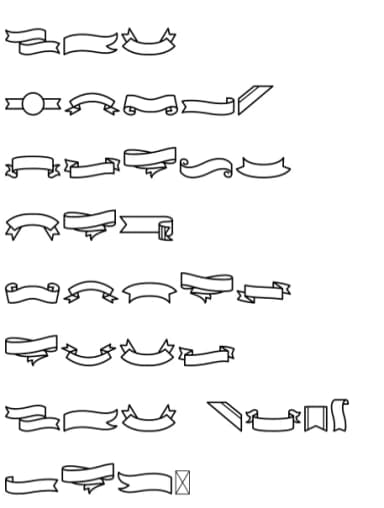
1 / 8About Ribbon Doodle Font
It's playful and whimsical. Ribbon Doodle by digitalplannerland is a dingbat font built for decorative work. It comes packed with ornamental ribbons, frames, dividers, and flourishes you can use for wedding invitation suites, digital planner stickers, scrapbooking layouts, and boutique gift tag designs. These aren't your standard type elements; they're carefully drawn ornaments that actually look handmade, with the kind of detail that catches the eye and rewards close attention.
Pair this with a clean, neutral sans-serif to keep your text readable while the ribbons and frames handle the decorative heavy lifting. Use them as borders, corner flourishes, or scattered throughout your layout for that cohesive, hand-designed aesthetic. Grab Ribbon Doodle on Creative Fabrica, and you'll have everything needed to add genuine character to your next project without searching for matching decorative elements elsewhere.
Ribbon Doodle Font